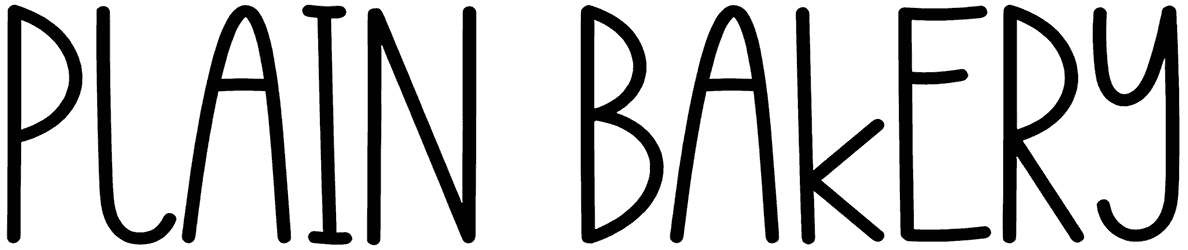
Plain Bakery Font
Of course, it’s a great idea to turn Plain Bakery into promotional posters and social media content to advertise your delicious cakes and croissants, but is that really all? We’re glad to say no! With a spring font as sweet as Plain Bakery, you get to make friends with anyone you want.
The magic is yours wherever you put this bakery font of RB. However, you may want to know in advance that Plain Bakery is without the lowercase characters.